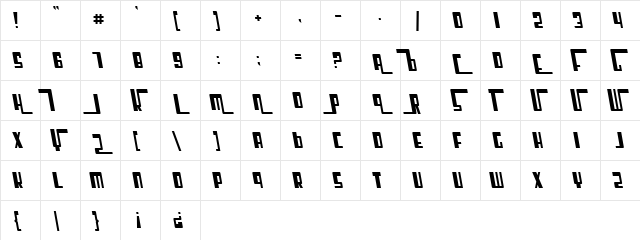
Cosmic Age Italic Free Font
Cosmic Age Italic
Cosmic Age Family
Complete Cosmic Age Italic glyph index. Displaying only characters natively supported by Cosmic Age Italic font.
Design Context for Cosmic Age
Cosmic Age is a composed and adaptable typeface that performs quietly and consistently across a wide range of design contexts. The slanted form adds forward momentum and visual energy.
Pro Tip: Use Cosmic Age for emphasis, pull quotes, and subheadings where its slanted energy can add rhythm to the layout.